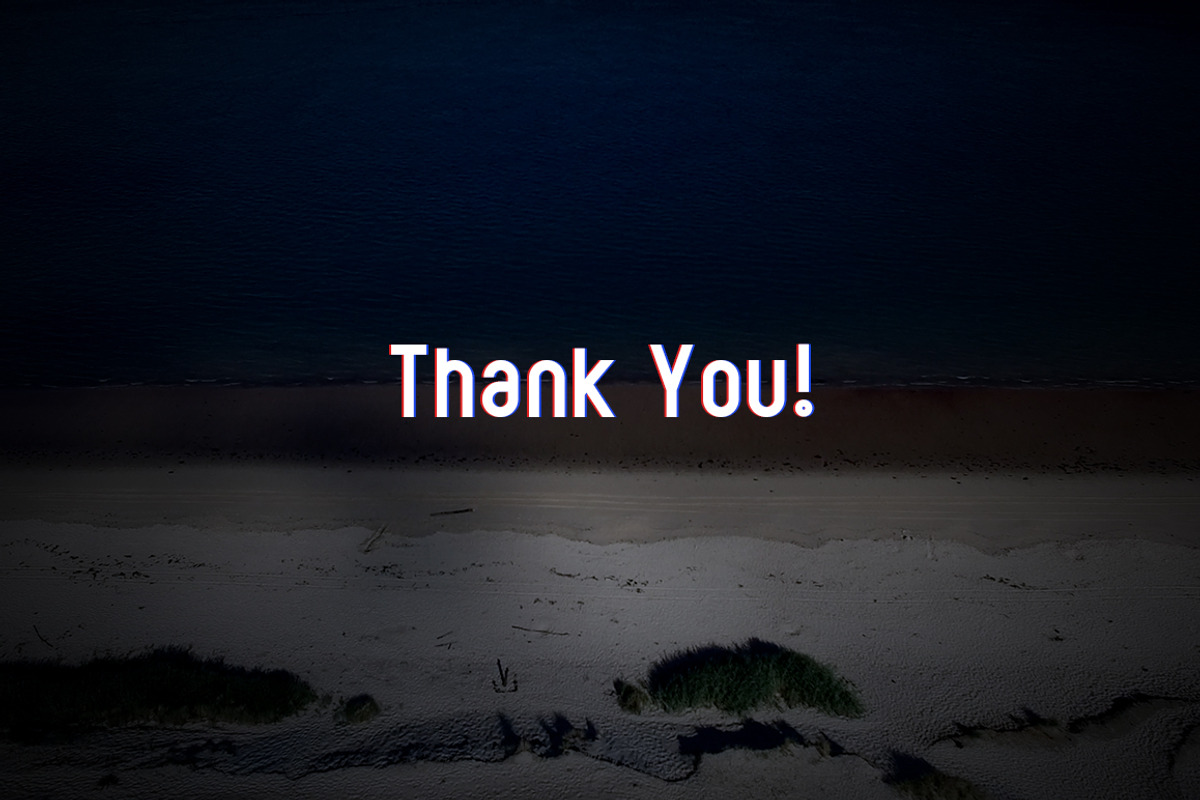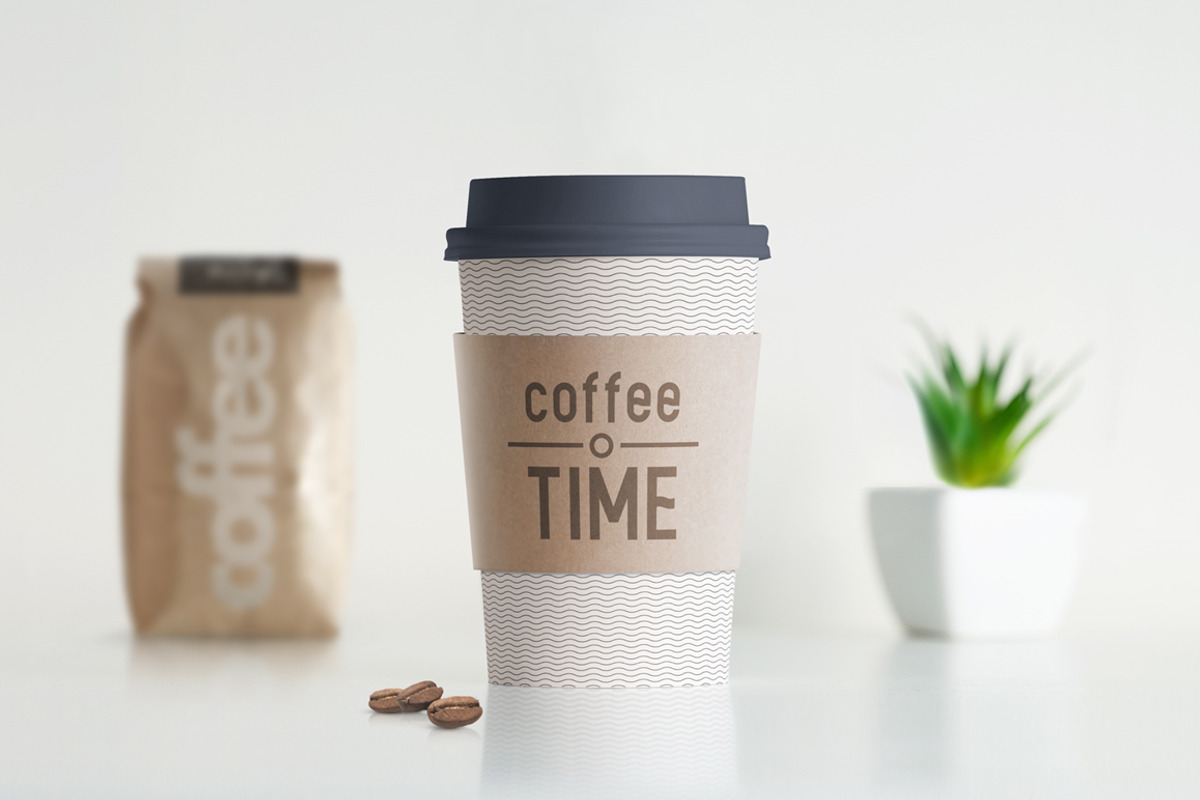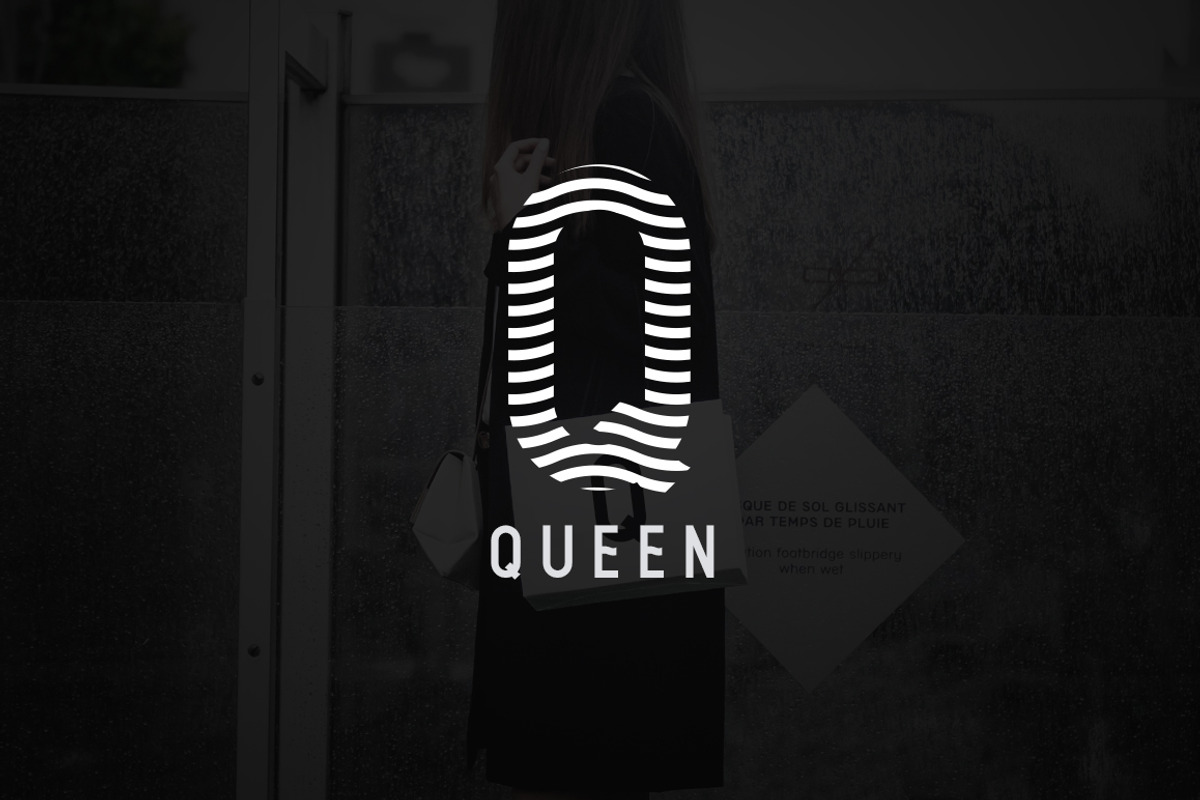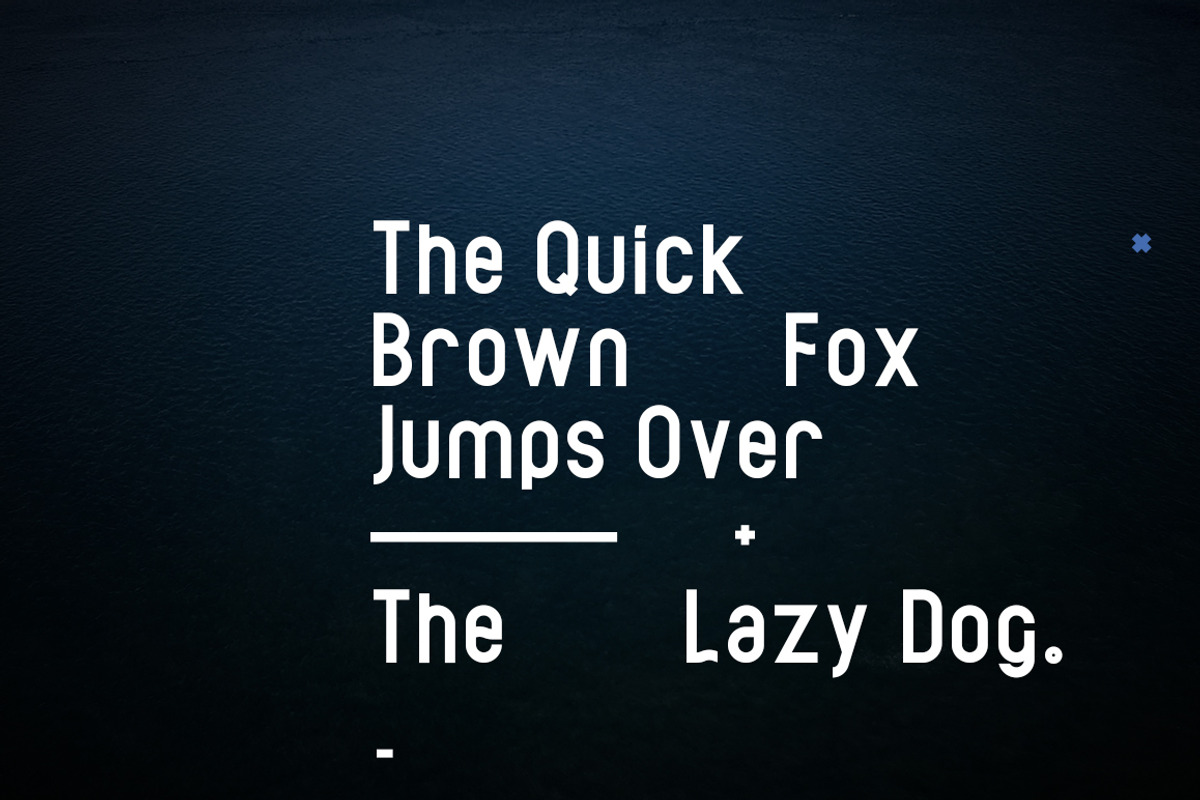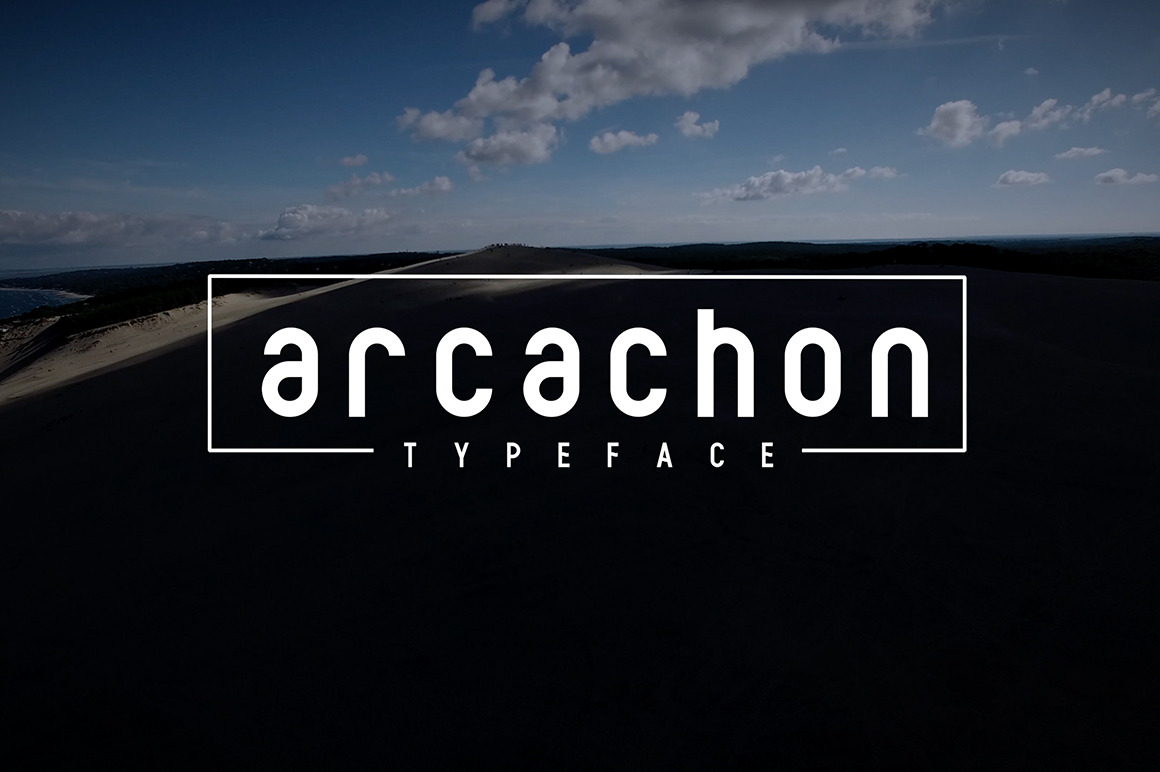
Arcachon Typeface
Arcachon Font is a unique minimalistic typeface.
Made for giving minimalistic titles. Perfect for logo design. Arcachon packs a set of capitals, numbers and punctuation. Font for design logotypes, greeting, prints, web design, invitation, business cards.